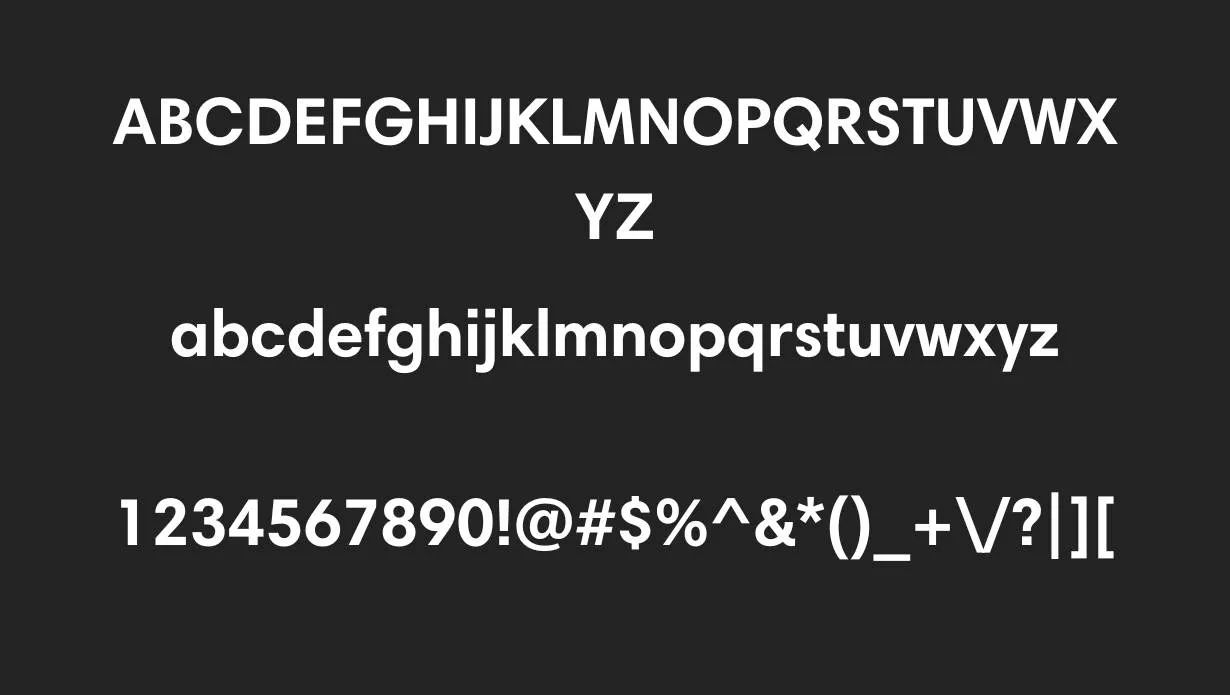
Harmonia Sans Font is a contemporary and versatile sans-serif typeface suitable for various design applications. Its clean lines and multiple styles make it a practical choice for branding, advertising, web design, and packaging.
| Name | Harmonia Sans Font |
| Designer | Jim Wasco |
Harmonia Sans Font offers a modern and organized aesthetic to your design work. For an enhanced audience response, consider using the SF Diego Sans Font alongside this font family, creating a powerful and engaging combination.